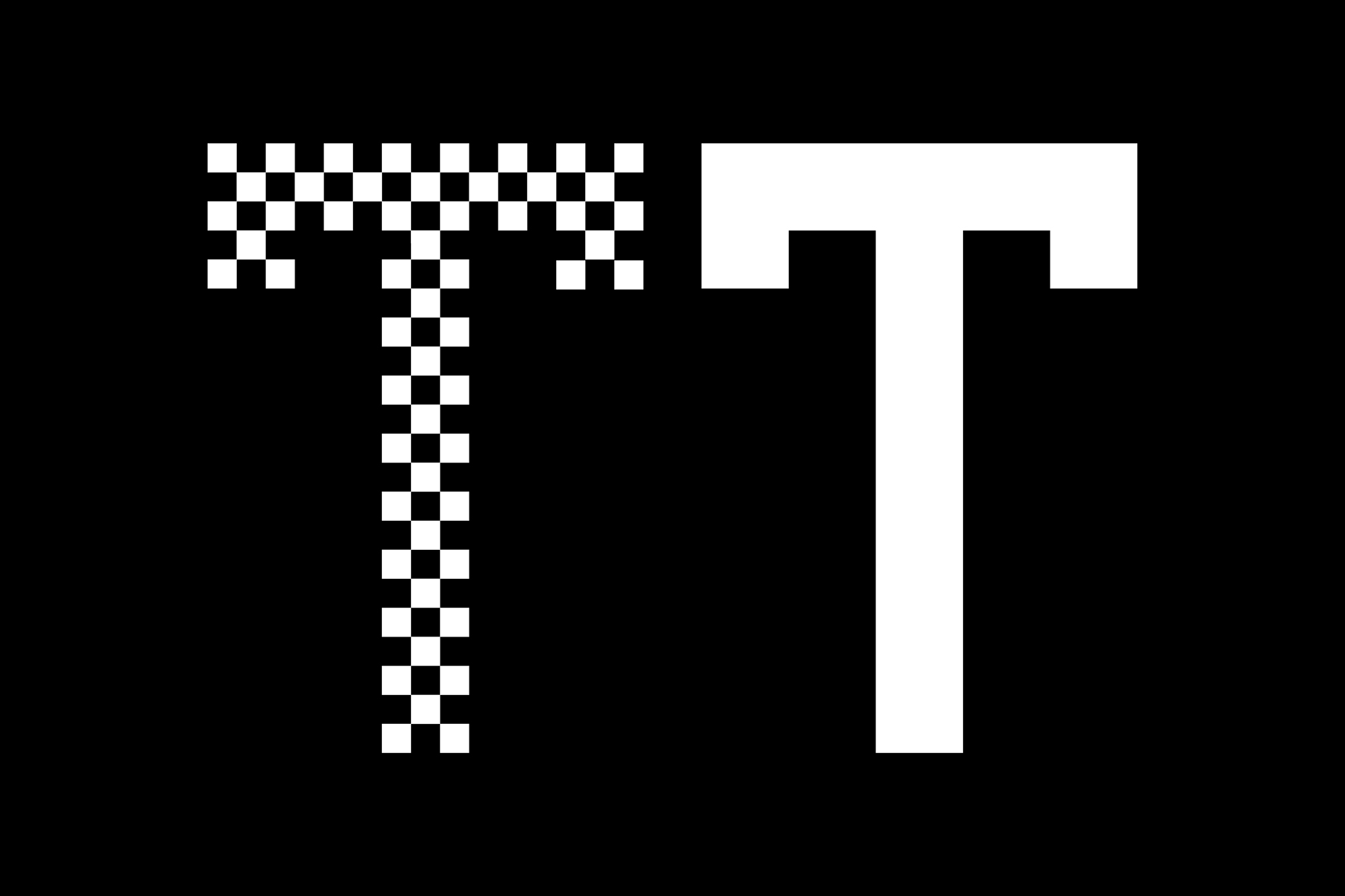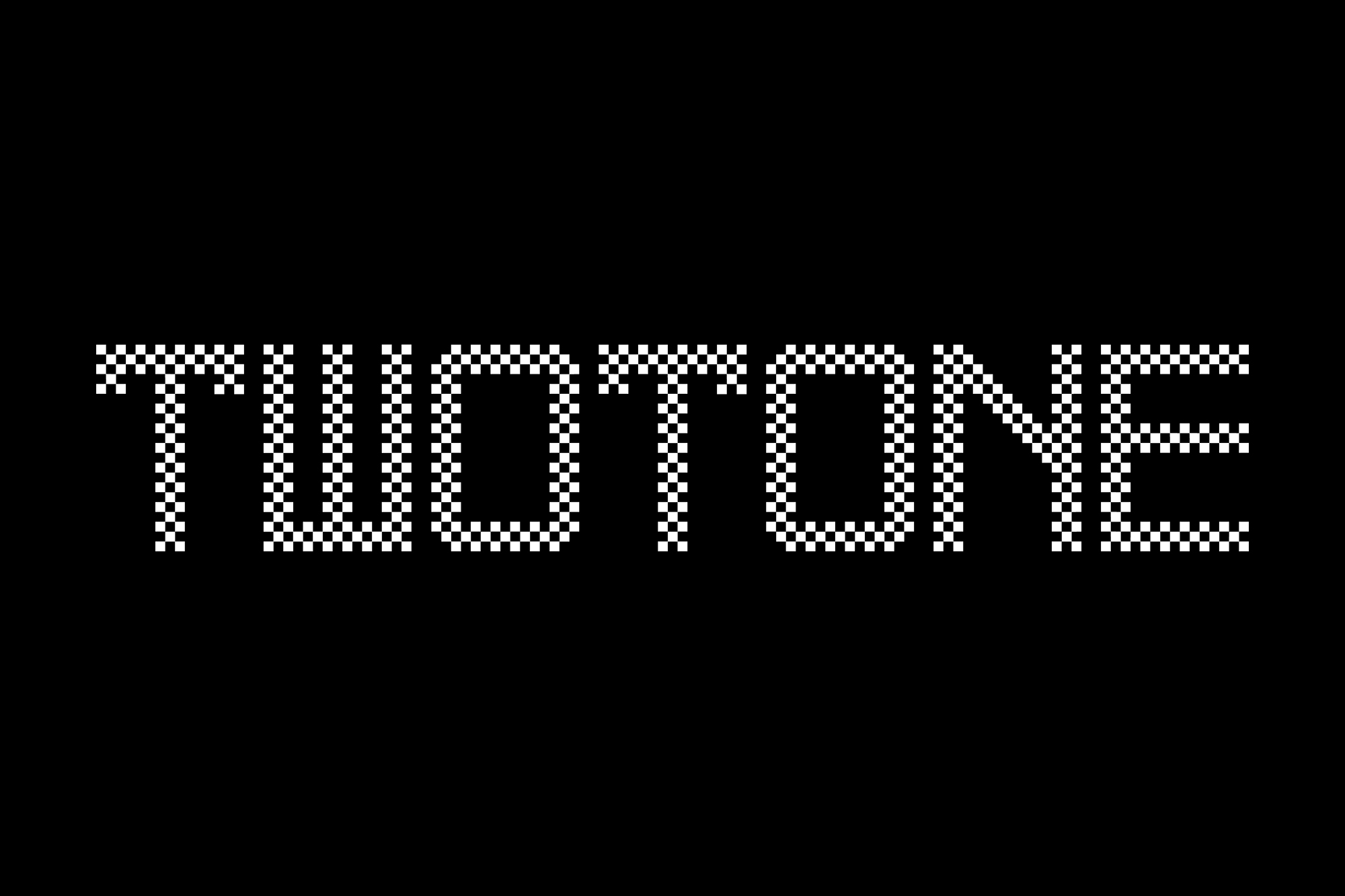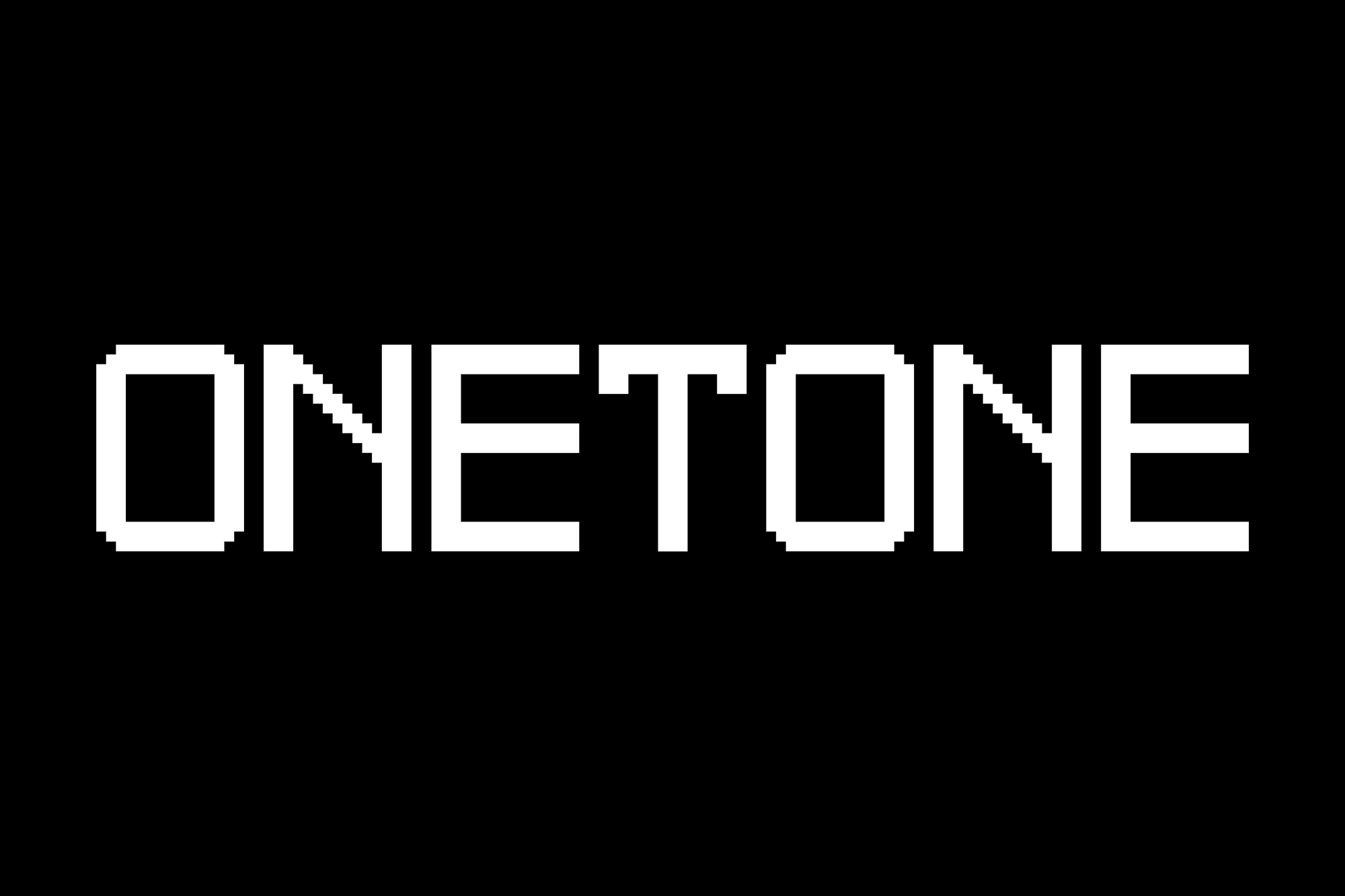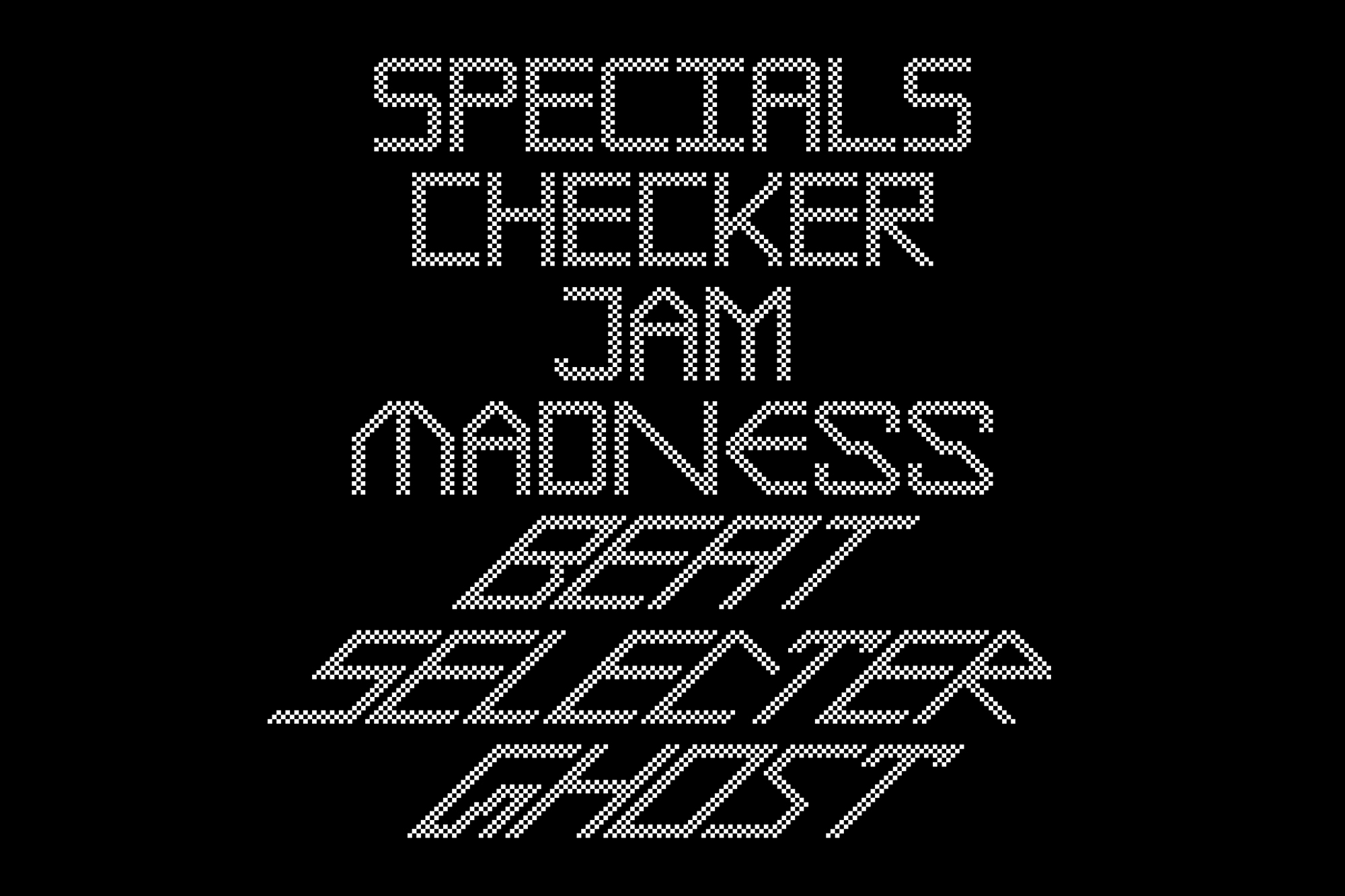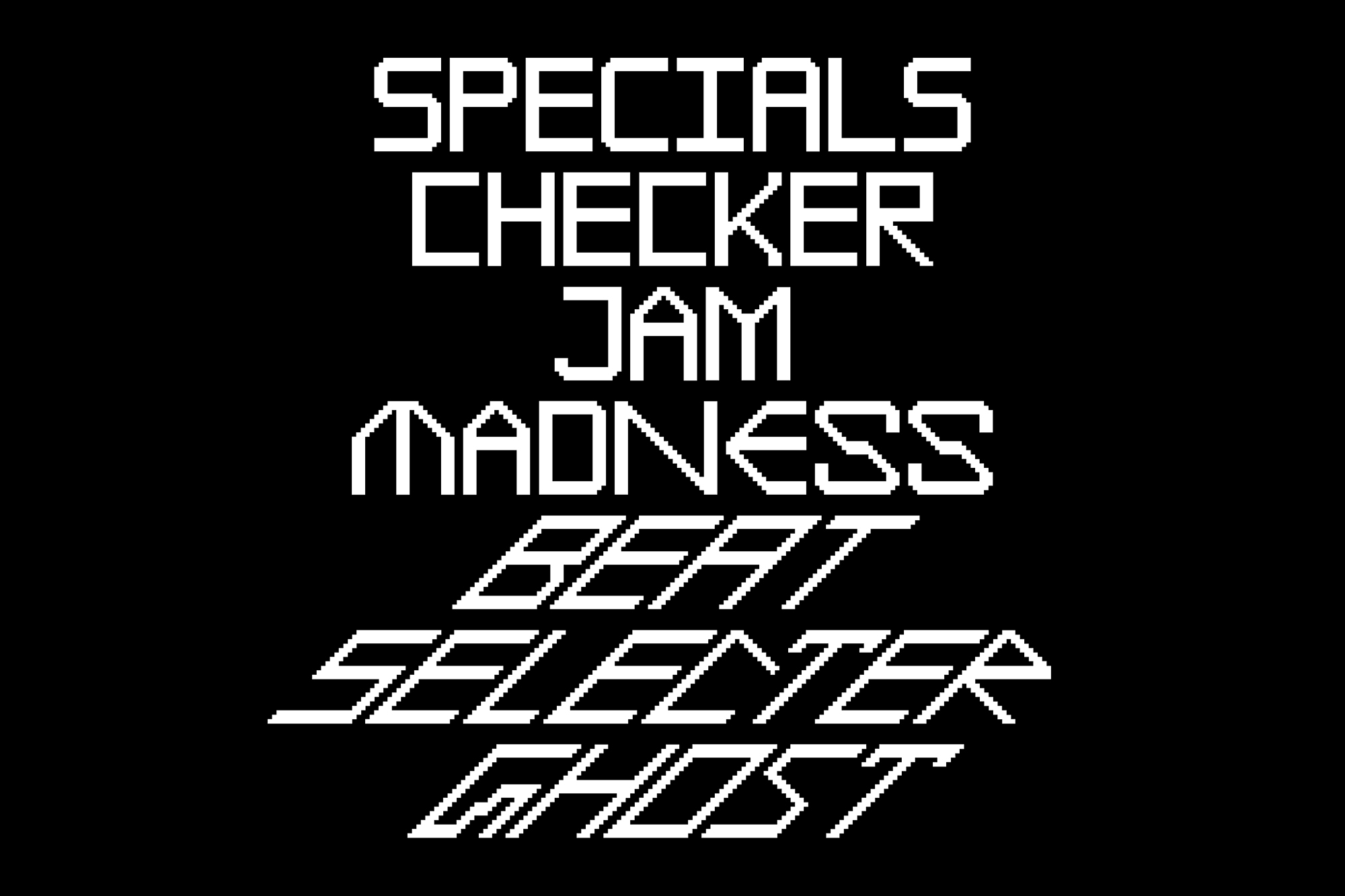
TwoTone
About TwoTone
TwoTone is a typographic homage to the musical movement of the same name. Born in the late 1970s in Thatcher’s austere England, this danceable blend of Jamaican ska infused with punk and mod energy left a lasting mark on the history of rock music, both sonically and visually. It takes its name from the 2-Tone Records label, founded in Coventry by Jerry Dammers of The Specials, which turned the black-and-white checkerboard into a polysemic symbol: of the sharp elegance associated with its scene, of the offbeat rhythm driving its music, and of the racial and cultural mixing it championed and embodied.
The TwoTone typeface is structured around the checkerboard. Released in seven styles named after the bands, tracks, and expressions that form the genre’s lexicon, it captures both the discipline and the pulsating vibration of this motif, somewhere between repetition and dissonance. By filling in the white squares, TwoTone becomes OneTone. The rhythmic pattern is no longer visible, yet its vibration persists beneath the surface; the structure, rendered invisible, still beats inside the form. Together, TwoTone and OneTone form a typographic diptych driven by the same pulse: on one side explicit, on the other lingering.
DesignerGuillaume Sbalchiero
Mastering / EngineeringLéon Hugues, Anatole Couteau